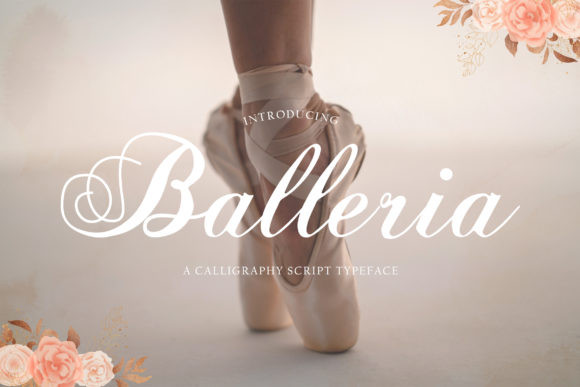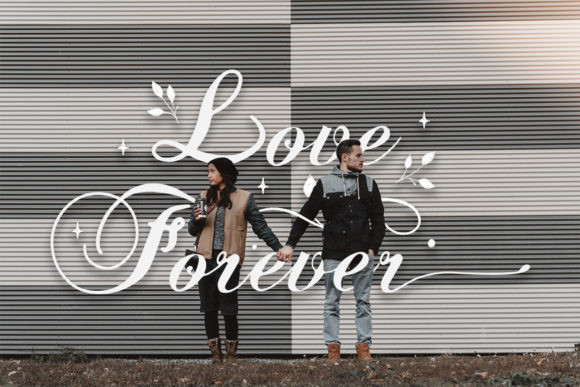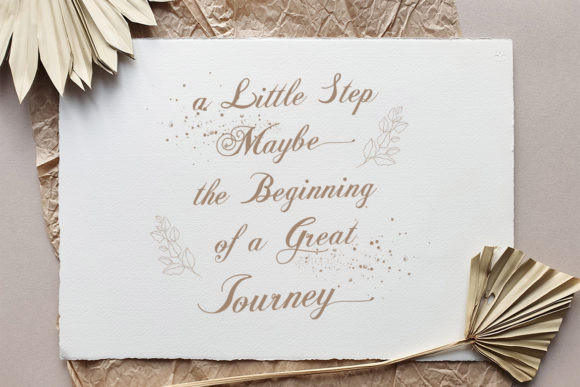
Balleria Font
Balleria is a classy and lovely script font. It has an elegant style and is perfect for creating original designs. It can be used for various purposes such as logos, wedding invitations, headings, t-shirts, letterhead, signage, labels, news, posters, badges and so much more.